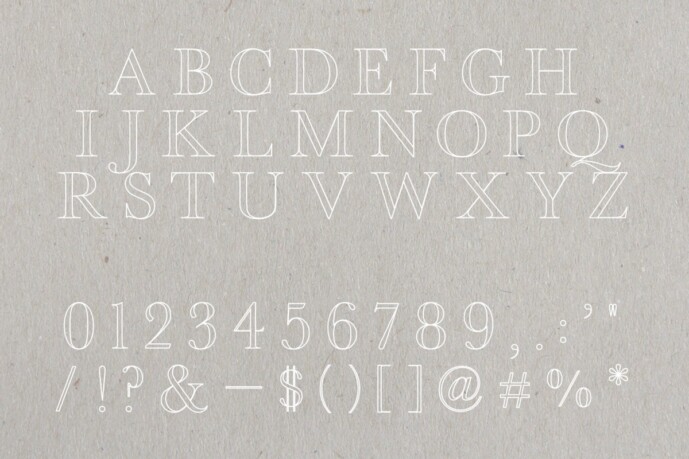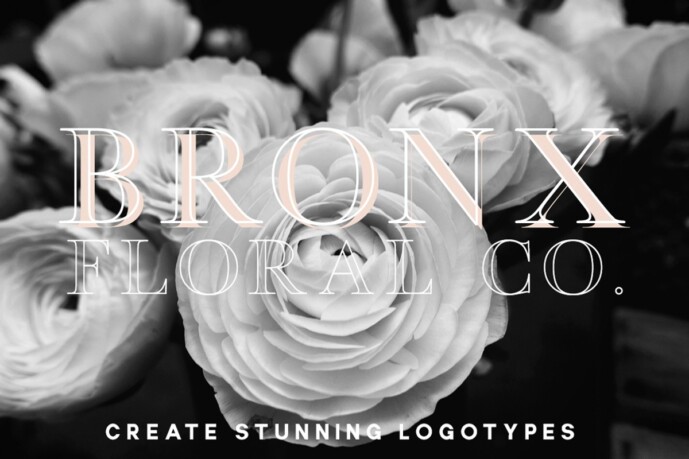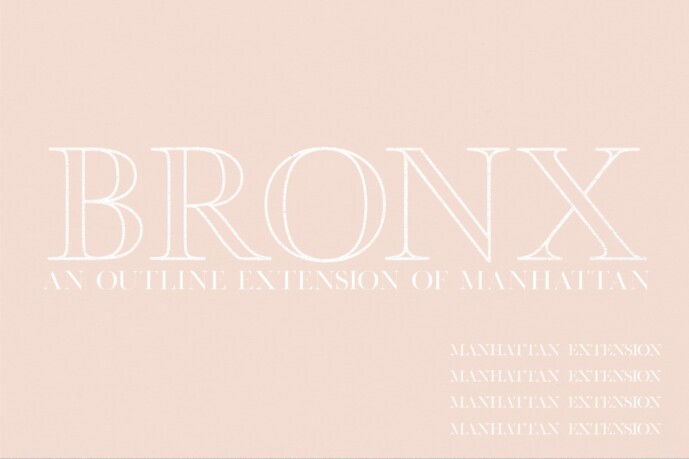
Bronx Outline Font
Bronx Outline Font is a beautiful outline + offset extension for our top-selling font, Manhattan! Create stunning logotypes, beautiful headers, and so much more with this beautiful combo. It’s also perfect for invitations, magazines, and print design. Plus, the type automatically offsets, so all you need to do is duplicate your Manhattan layer in Photoshop and set it to Bronx!